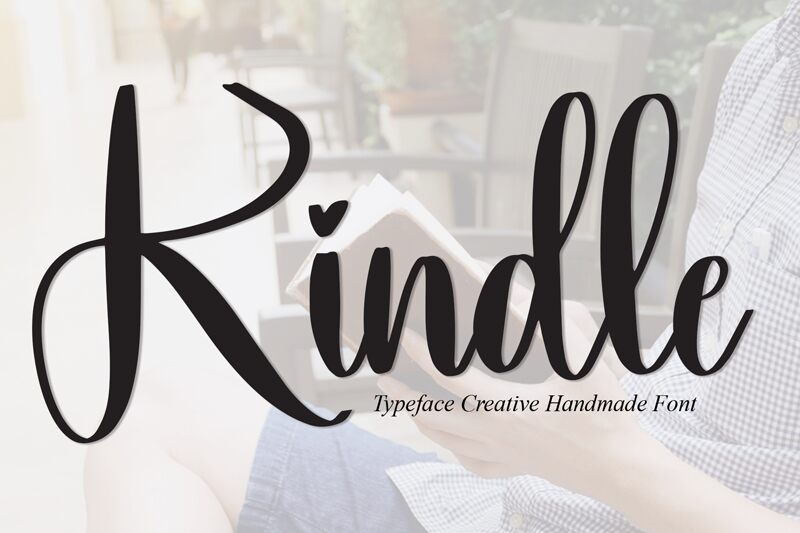
Kindle
Kindle font by Scratchones is a captivating handwritten typeface that effortlessly blends elegance with a casual flair. Its fluid, natural strokes give it an authentic, handwritten charm that's both stylish and approachable. Perfectly suited for creative projects requiring a touch of personal warmth, Kindle font is ideal for wedding invitations, greeting cards, and branding elements that seek to convey intimacy and friendliness.
This free font stands out with its distinctive curves and unique character shapes, making it an excellent choice for designers looking to add personality to their work. Download the Kindle font today to infuse your projects with a sense of handcrafted beauty and individuality.